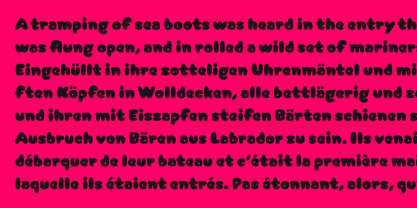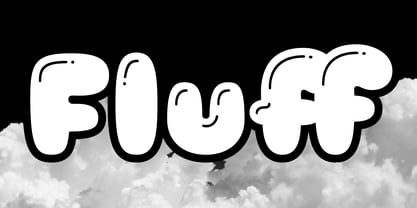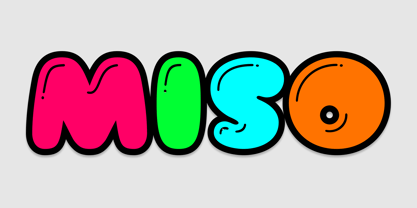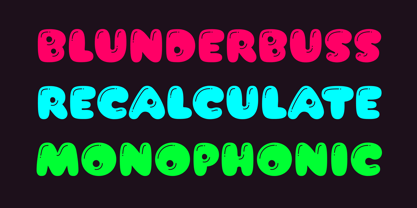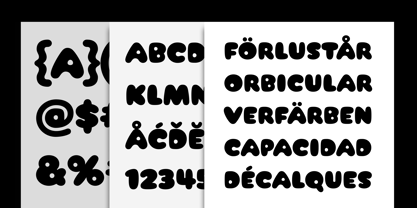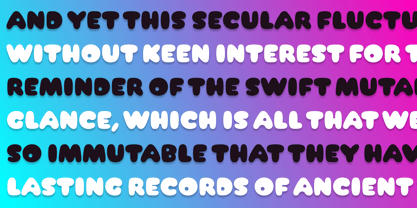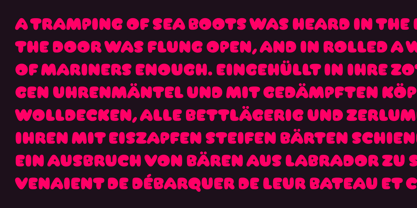
Arbuckle™
The Arbuckle Font Family was designed by Robby Woodard and published by GarageFonts. Arbuckle contains 2 styles and family package options. More about this family
Arbuckle is a playful display typeface that brings a sense of buoyancy and dimensionality to contemporary typography. Built around soft, inflated forms, its letterforms feel rounded and tactile, evoking the look of bubble lettering while maintaining a controlled, graphic structure. Subtle variations in stroke and curvature give the design a lively sense of depth, as if the letters were gently expanding and catching light. Bold yet approachable, Arbuckle delivers a tone that is cheerful, expressive, and highly visual without feeling chaotic. Its generous proportions and smooth rhythm make it especially effective at larger sizes, where its personality can fully emerge. Ideal for branding, packaging, and display applications, Arbuckle offers a vibrant, attention-grabbing voice with a distinctly playful edge.